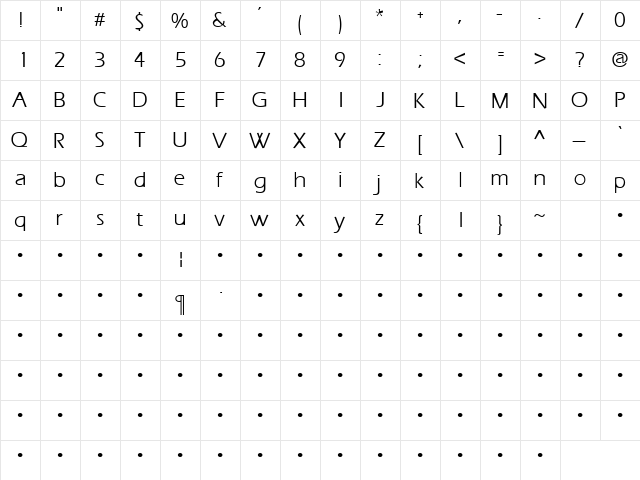
QTEraType Regular
Design Context for QTEraType Typeface
QTEraType offers clean, dependable letterforms without strong stylistic allegiance, making it a practical choice for designers who need flexibility.